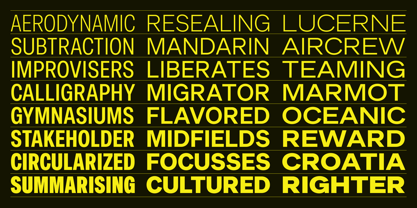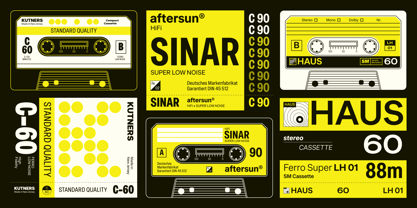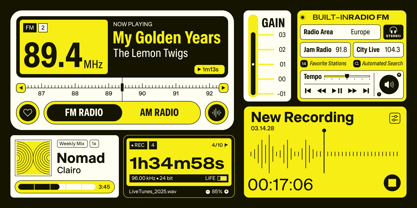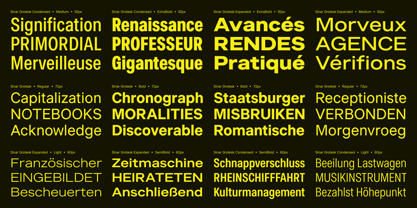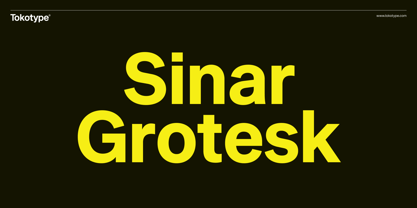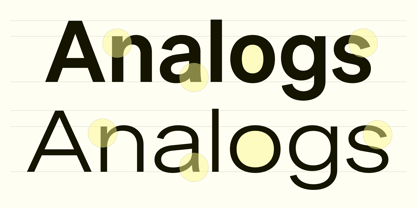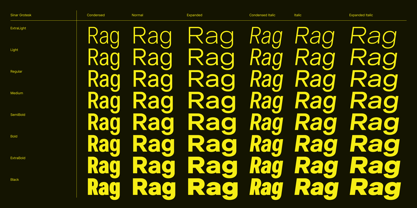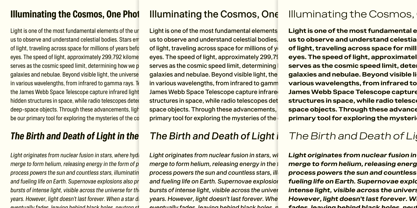
Sinar Grotesk
Sinar Grotesk is a refined sans-serif that blends neo-grotesque precision with the warmth of early geometric grotesques. Inspired by Akzidenz-Grotesk, Breite Grotesk, and Bauhaus design, it offers a timeless, neutral, and highly legible character. With monolinear strokes and linear proportions, it remains formal yet approachable, making it ideal for branding, editorial design, signage, and UI applications. Its Swiss-influenced clarity ensures readability in both print and digital formats, while subtle details add warmth. Sinar Grotesk offers three variable axes—width (Condensed, Normal, Expanded) and weight (ExtraLight to Black)—allowing seamless adaptation across design needs. It embodies both tradition and modernity in a versatile, cohesive type system.